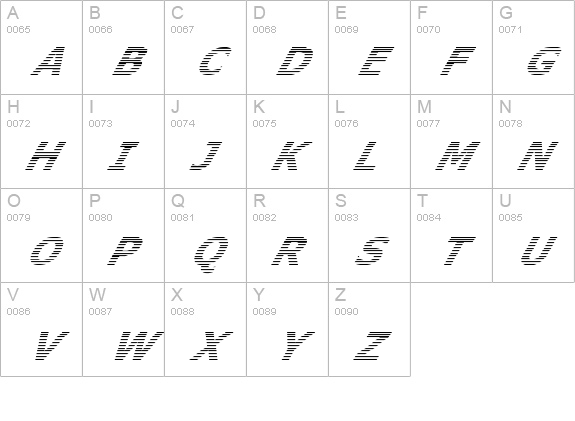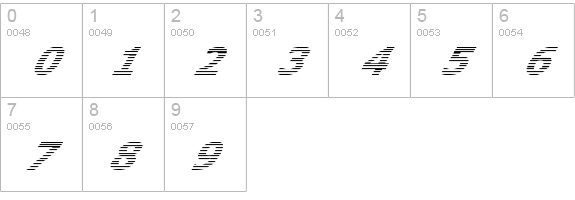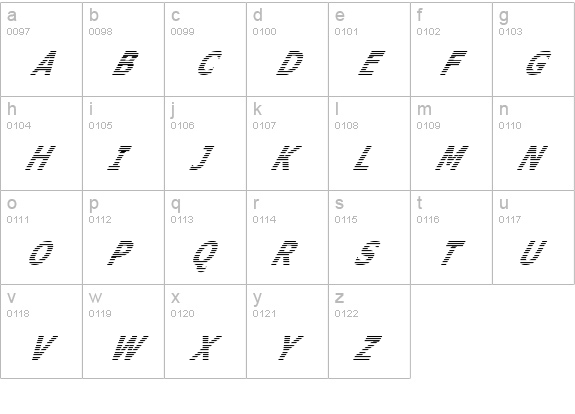
Where is the rest Italic Font Details
Where is the rest Italic is a distinctive, italic variant in the Where typeface family \xE2\x80\x94 well suited to design and typography projects.
Where is the rest Italic font is a unique and stylish typeface that exudes elegance and sophistication. With its slanted and sleek design, it adds a touch of modernity to any project. This font is perfect for creating eye-catching headlines, logos, and branding materials. What sets Where is the rest Italic font apart is its versatility. It can be used in a variety of design projects, whether you're working on a website, a magazine layout, or a promotional poster. Its clean lines and smooth curves make it easy to read, ensuring that your message gets across effectively. One of the best things about Where is the rest Italic font is that it is free to download. Yes, you heard that right! You can get your hands on this amazing font without spending a dime. Simply head over to FontsMarket.com and enjoy the freedom of accessing this font without any cost. By choosing Where is the rest Italic font, you not only get a visually appealing typeface but also a cost-effective solution. It's the perfect choice for designers, artists, and anyone who wants to add a touch of sophistication to their projects without breaking the bank. So why wait? Visit FontsMarket.com today and download Where is the rest Italic font for free. Unleash your creativity and elevate your designs with this stunning and freely available typeface.